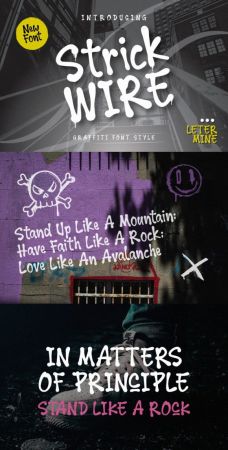
Strick Wire is a trendy, thin graffiti-style display font that exudes urban sophistication. Its sleek lines and edgy appeal make it perfect for modern designs, street art projects, and urban-themed graphics. With its bold yet minimalist aesthetic, Strick Wire adds an urban flair to any creative endeavor, captivating attention effortlessly.